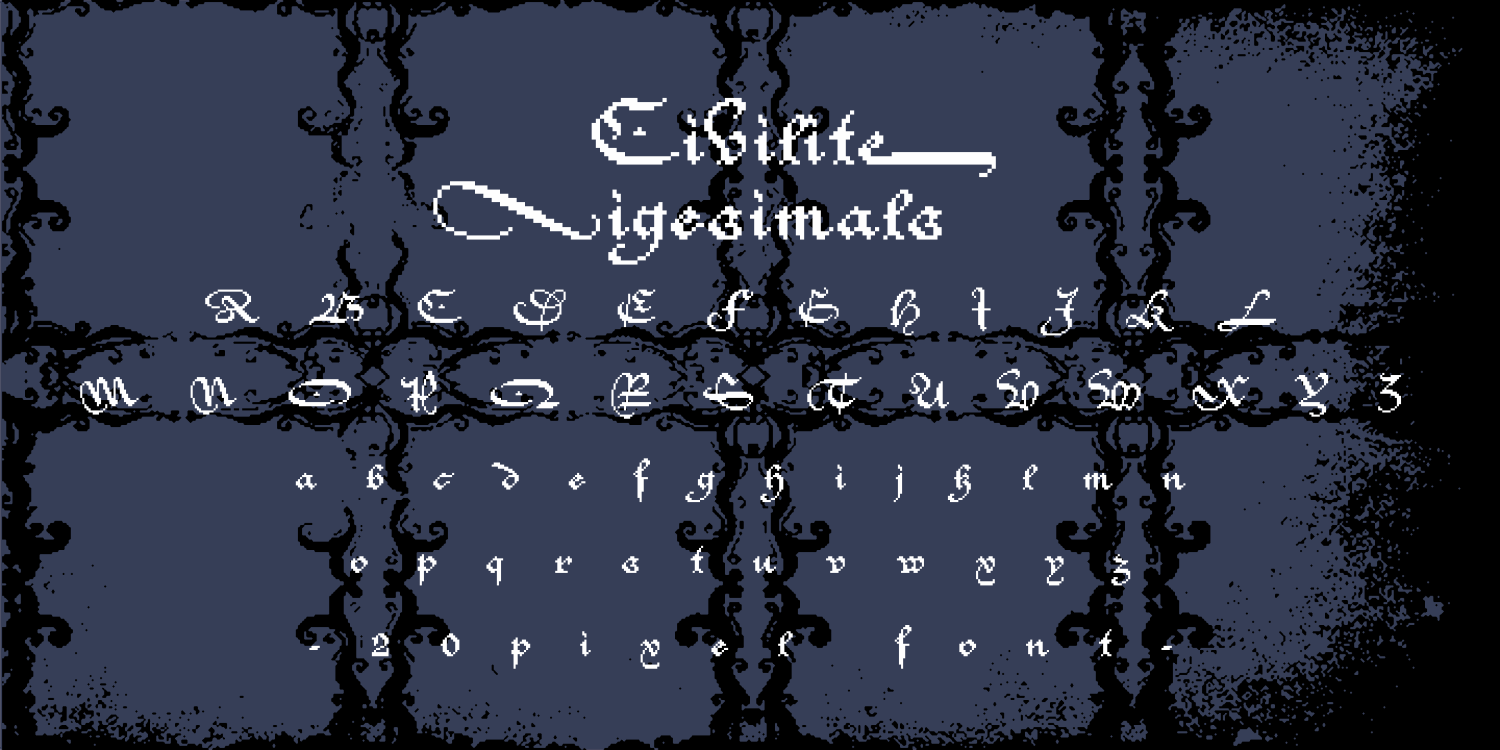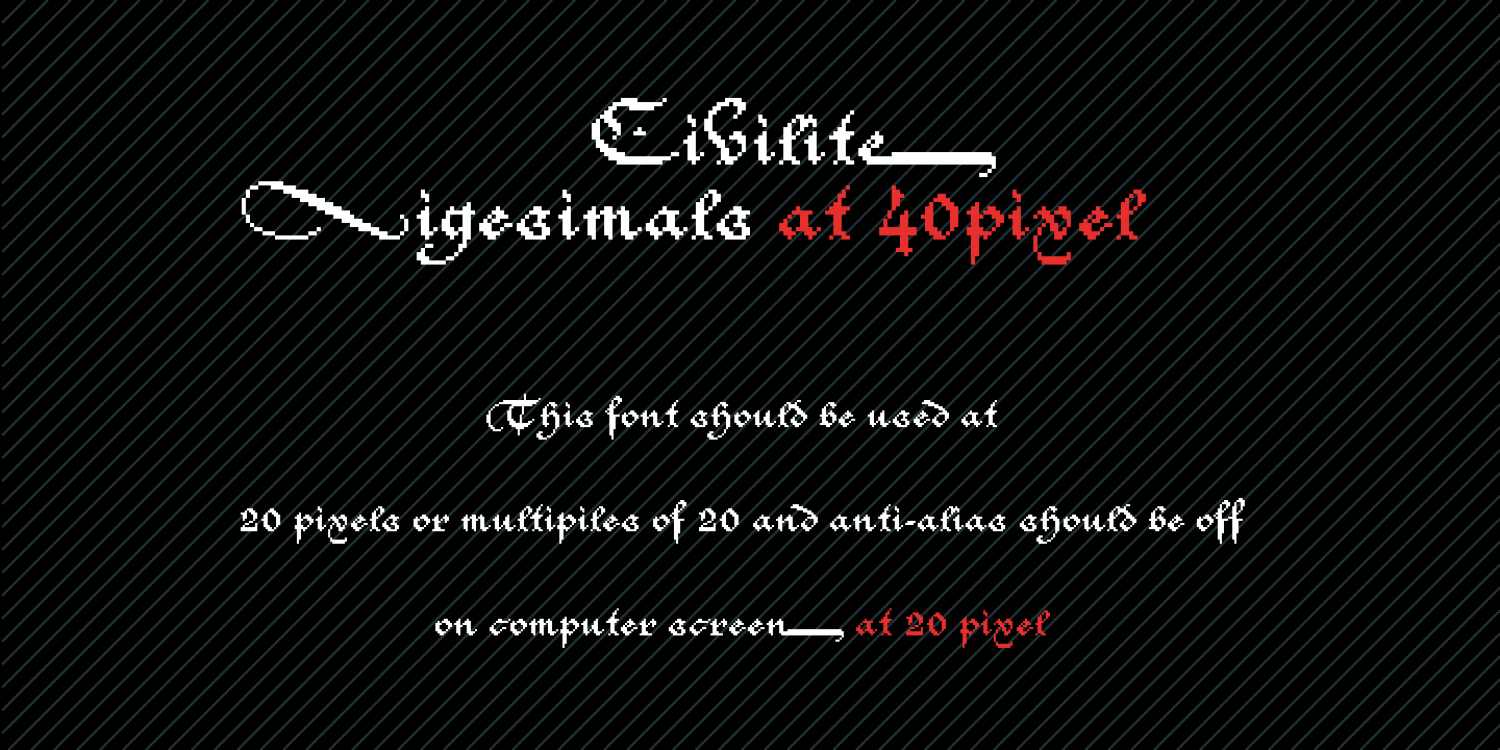
Civilite Vigesimals
Font Family by Dharma Type
This 8-bit pixel font is crafted in homage to the game designers of the 1980s and the pixel font pioneers of the mid-1990s.
Use at size 20 pixels or multiples of 20 and anti-alias off is recommended.